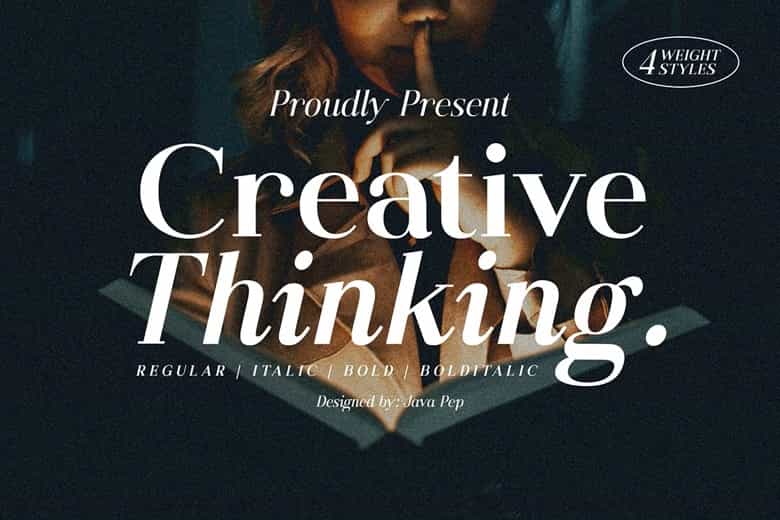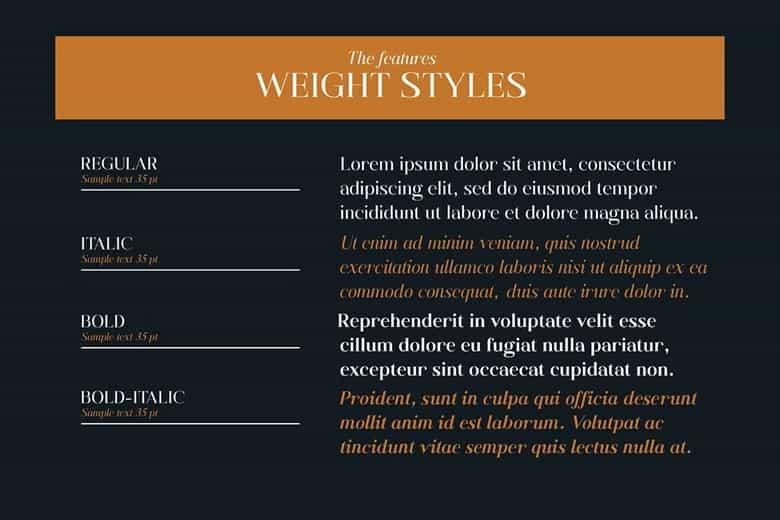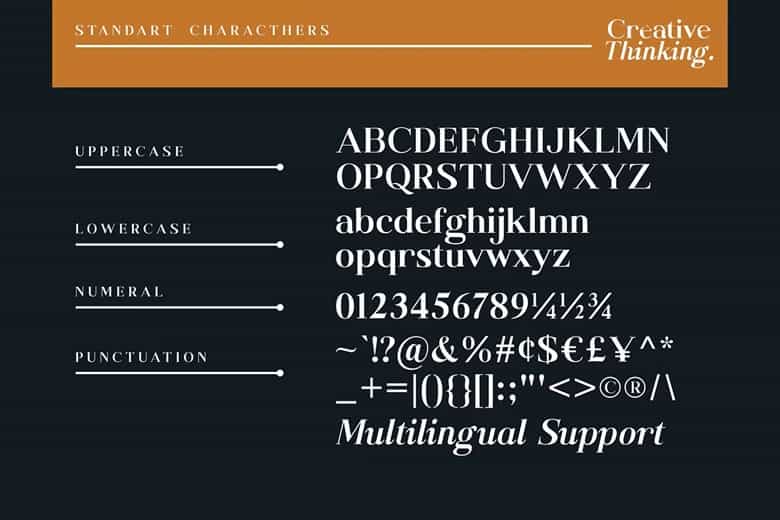
Our Creative Thinking serif font just came out of the oven and offers an elegant look with four weight styles: regular, italic, bold, and bold-italic. You can mix and match the weight styles for exceptional and beautiful design projects. More than 30 languages are included with the multilingual support in this font.